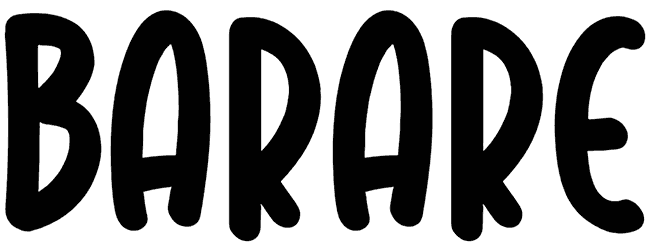
Barare Font
Barare is a handwritten font with a cartoon style that can make your projects fun, user-friendly, and easy to implement. This script font has thick and round lines that can create a sense of freshness in your writing without any additional decorations.
Using this baby font, you can implement cartoon logos, exciting titles, and children’s product advertisements in the best possible way. So if you don’t need small letters, add this font to your collection right now.